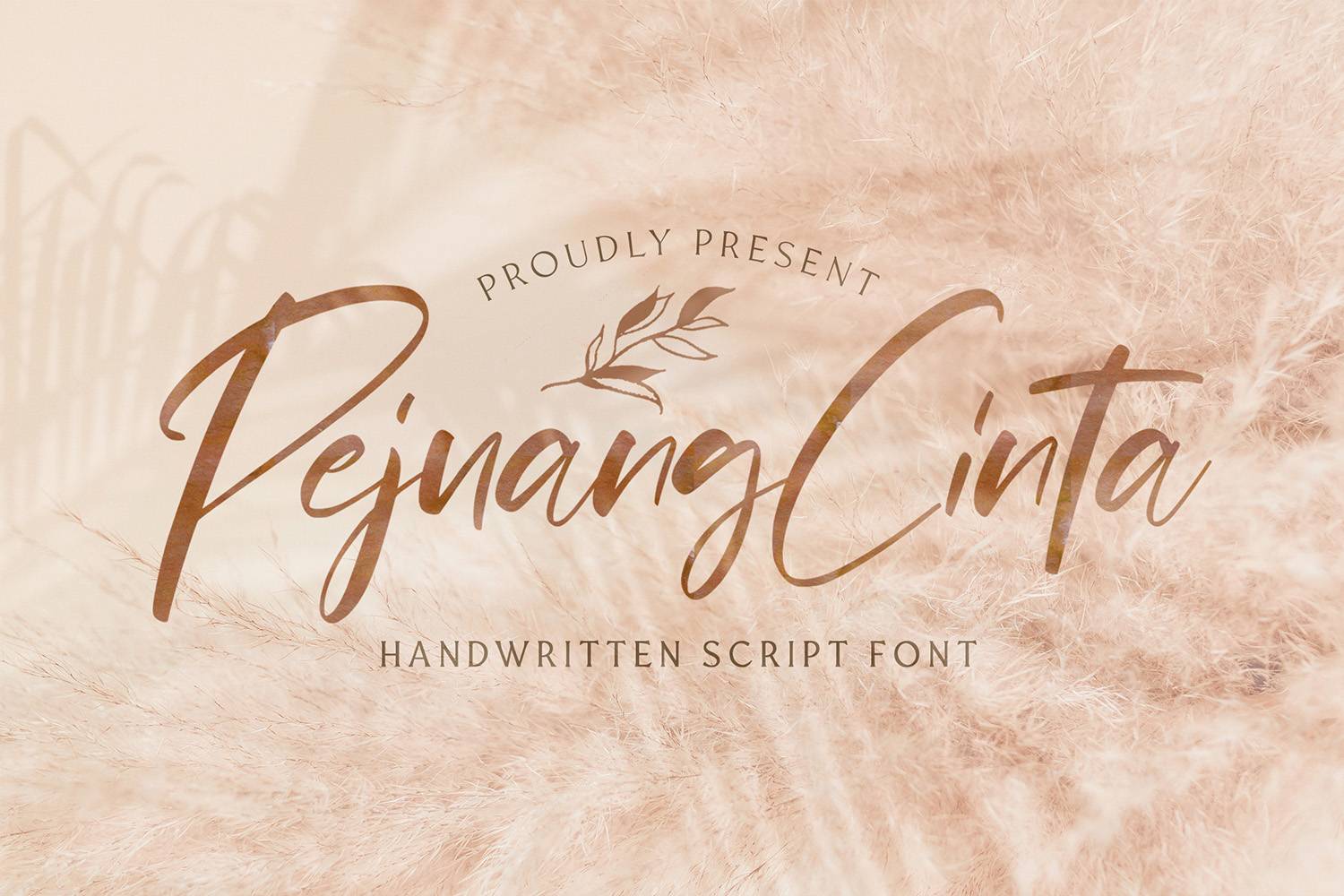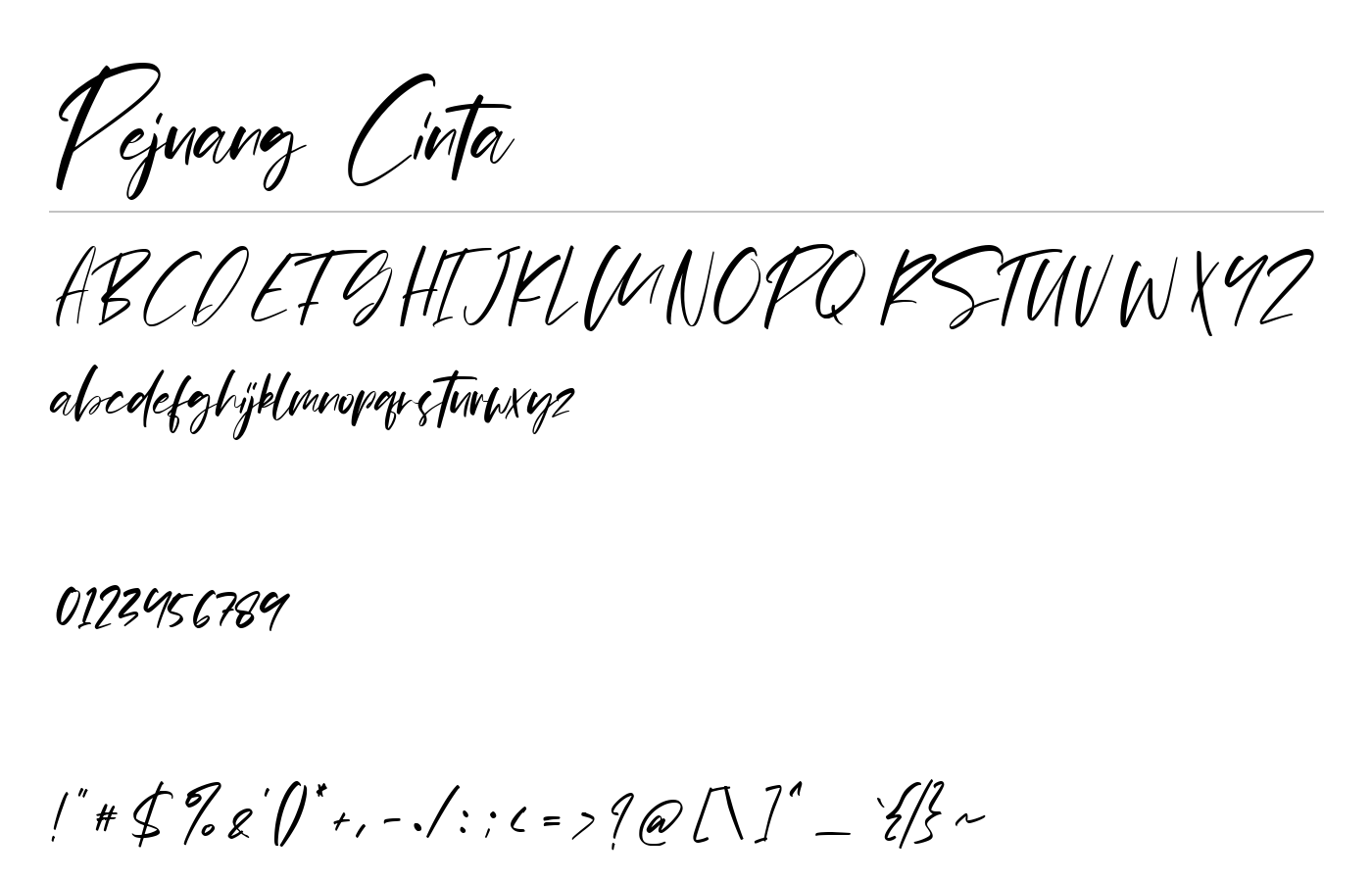
Pejuang Cinta is a lively and elegant script font with a handwritten, brush-like quality that feels personal and expressive. Its slender, dynamic strokes and slightly condensed letterforms convey a modern, artistic vibe, making it perfect for creative branding, invitations, and lifestyle projects that seek a natural yet stylish touch. This font works especially well for logos and headlines where a unique, heartfelt personality is desired.
Pejuang Cinta Font
About Pejuang Cinta Font
| Font family | Pejuang Cinta Font |
| Designer | Stringlab |